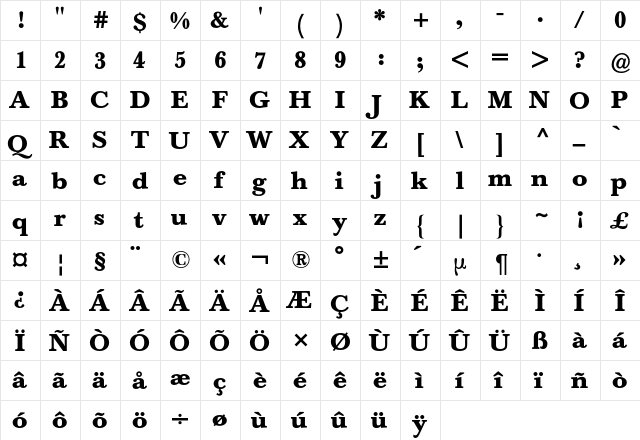
Baskerville BQ Regular
Design Context for Baskerville BQ Typeface
Baskerville BQ takes a measured approach to typography — its balanced proportions and neutral character make it a reliable workhorse for both digital and print work.